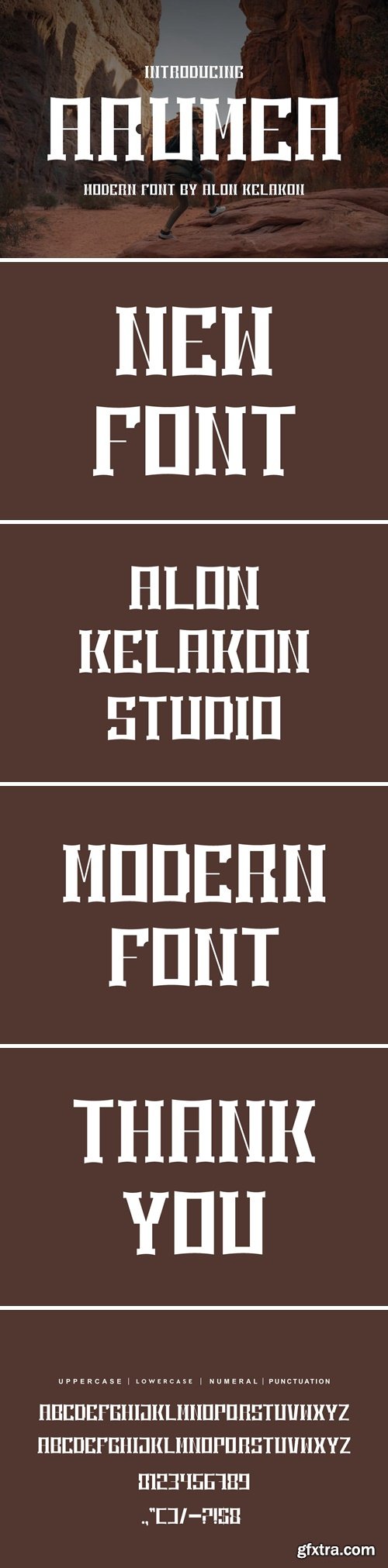
阿鲁梅亚字体
Arumea Font is unique . Ready to use for your design like labeling, movie sceen, poster, movie title, gigs, album covers, logos, and much more.